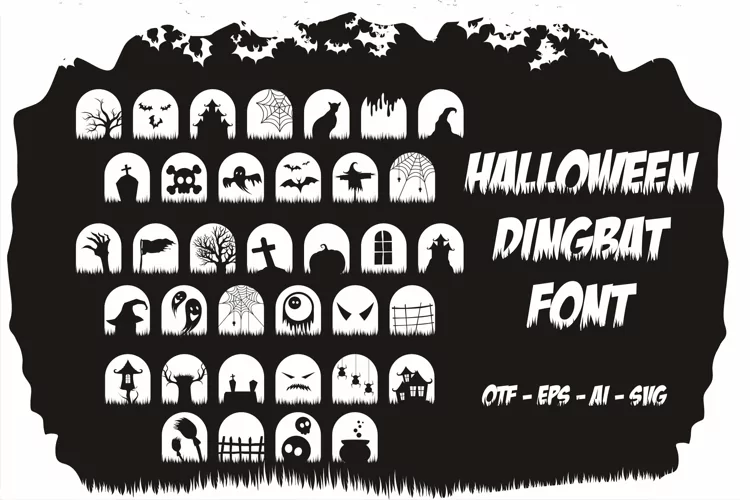
Halloween Vibes Font
Halloween Vibes is a cool, dramatic and spooky dingbats font. No matter the topic, this font will be an incredible asset to your fonts’ library, as it has the potential to elevate any creation.